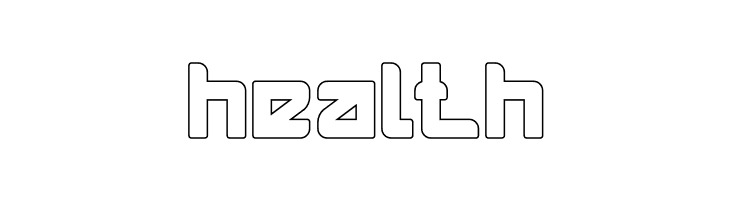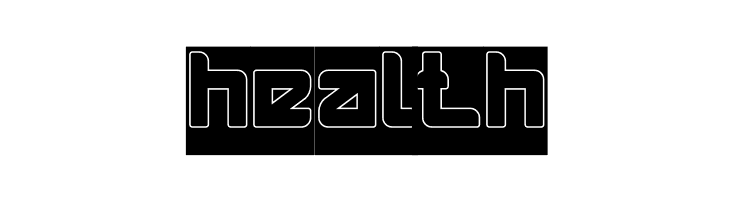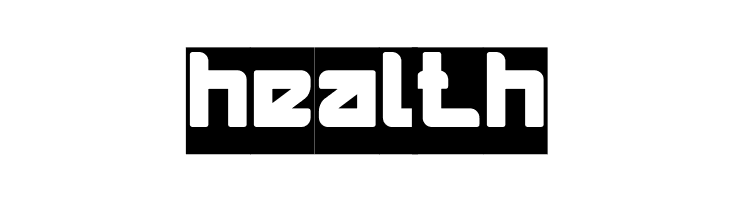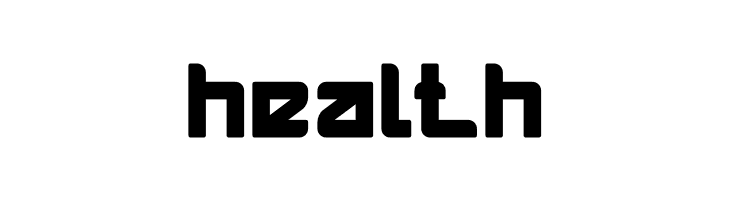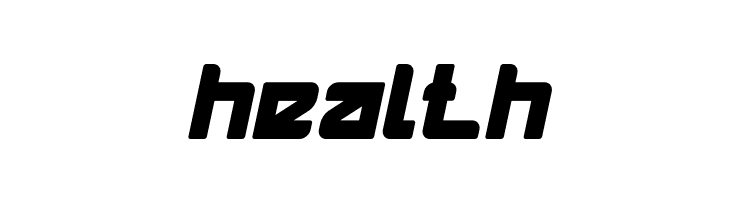
• FEATURED Italic
• FEATURED-Hollow
A bold, geometric font with hollow interiors and a futuristic style.
• FEATURED-Hollow-Inverse
A bold, hollow, geometric font with a futuristic style.
• FEATURED-Inverse
A bold, geometric font with a futuristic and digital aesthetic.
• FEATURED-Light
A bold, geometric font with a futuristic and modern design.